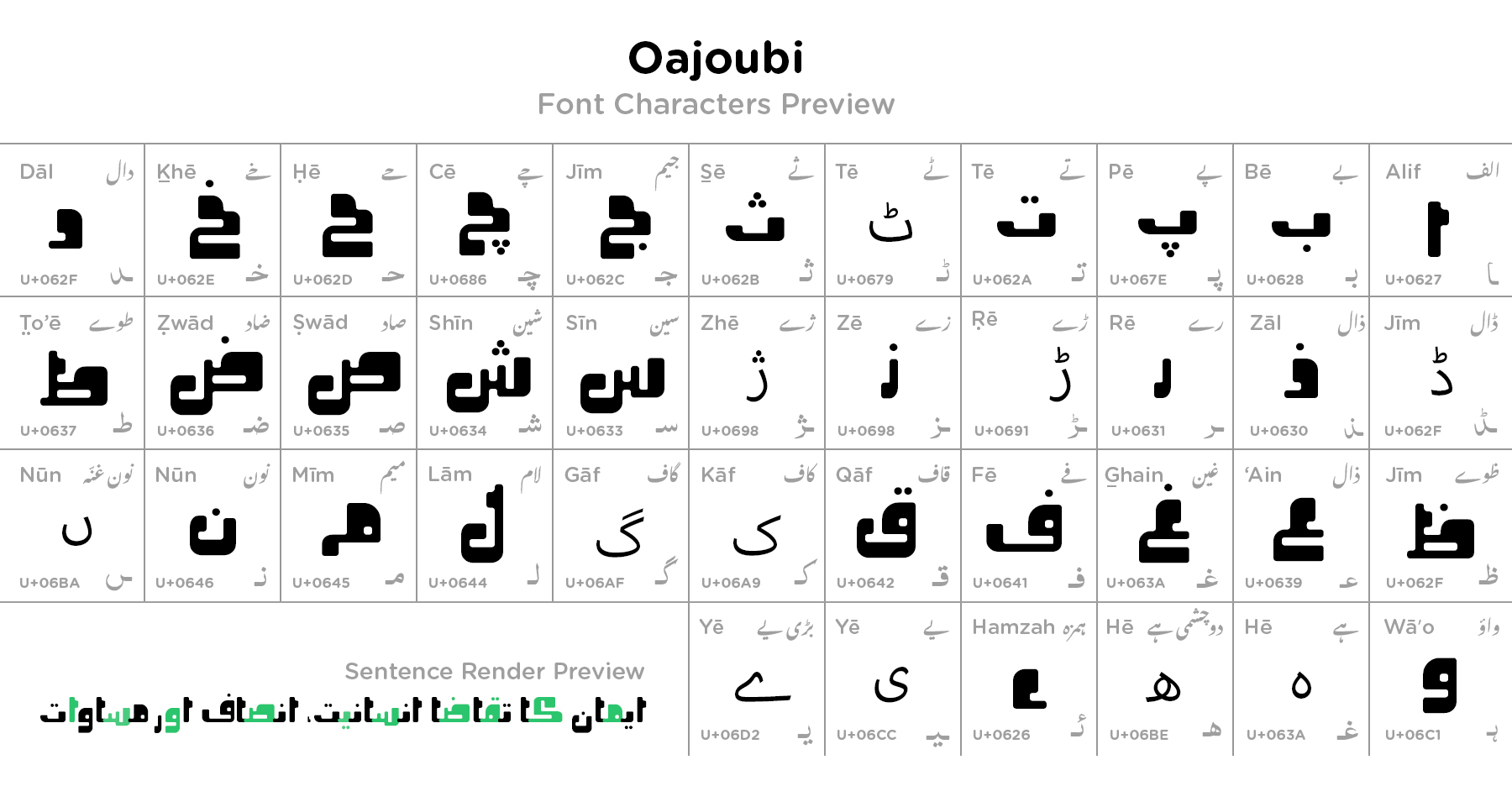
The Oajoubi is an Arabic font that showcases modern elegance with its sharp geometric structure, softened by smooth, rounded edges. Mostafa El Abasiry designed it, and it is derived from the Arabic word “miraculous.” Available in a single, consistent weight, it delivers a balanced, cohesive look across diverse applications. Each letter boasts a unique, recognizable shape for optimal legibility, even at smaller sizes. Minimalistic connections between characters maintain a clean aesthetic, while stylistic sets inject personality and customization options. This versatile font embraces multiple languages and thrives in various design realms, from branding and identity to web and digital content, leaving a lasting visual impression. Despite the geometric base, smooth and rounded edges soften the overall feel, offering a touch of warmth and approachability. Such a font can be used in creative projects, giving your text a playful vibe.
Oajoubi
| Font Family | Oajoubi |
| Font Developer | Mostafa El Abasiry |